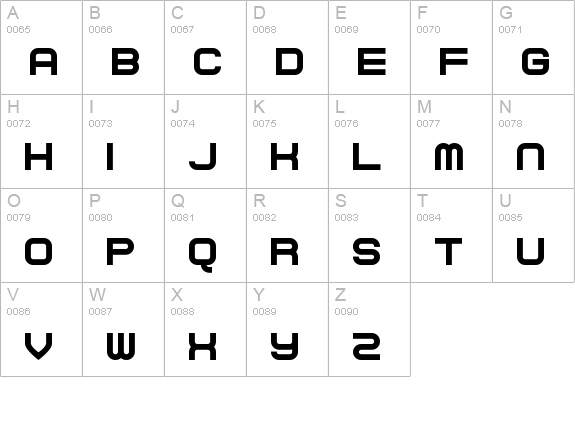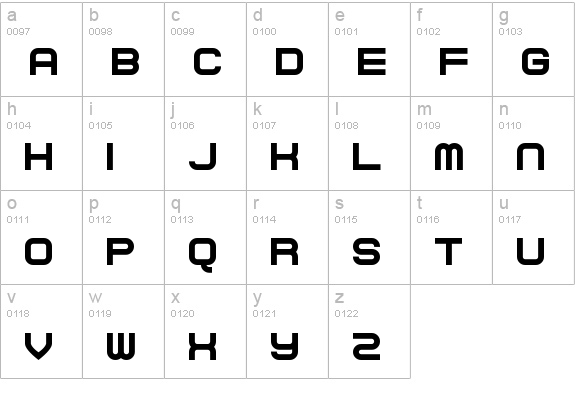
Curvert Font Details
Introducing Curvert font, a versatile and modern typeface that is sure to elevate your design projects to the next level. With its sleek curves and clean lines, Curvert exudes a sense of sophistication and style. This font is perfect for a wide range of applications, from branding and advertising to digital media and print materials. One of the best things about Curvert font is that it is completely free to download. You can get your hands on this stunning typeface at FontsMarket.com and start using it in your projects right away. Don't miss out on the opportunity to add Curvert font to your font library and take your designs to new heights.